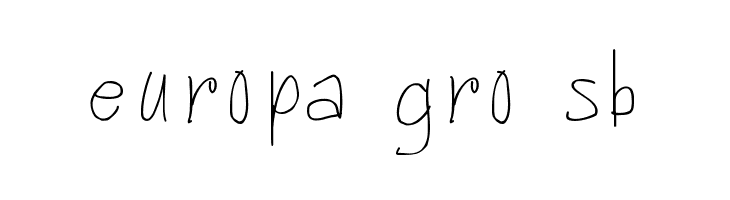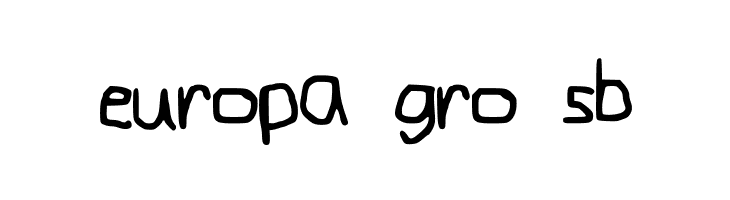
A playful, hand-drawn font with a whimsical, childlike style.
A playful, rounded handwritten font perfect for child-friendly designs.
A playful, childlike font with rounded, irregular strokes.
A playful, childlike handwritten font with irregular strokes and a whimsical style.
A playful, hand-drawn font with a childlike, informal style.
A playful, hand-drawn style font with rounded, childlike characters.
A playful, childlike font with bold, rounded strokes and an informal style.
A playful, hand-drawn font with a whimsical, childlike charm.
A playful, handwritten-style font with a casual and friendly appearance.
A playful, hand-drawn font with rounded, informal characters.